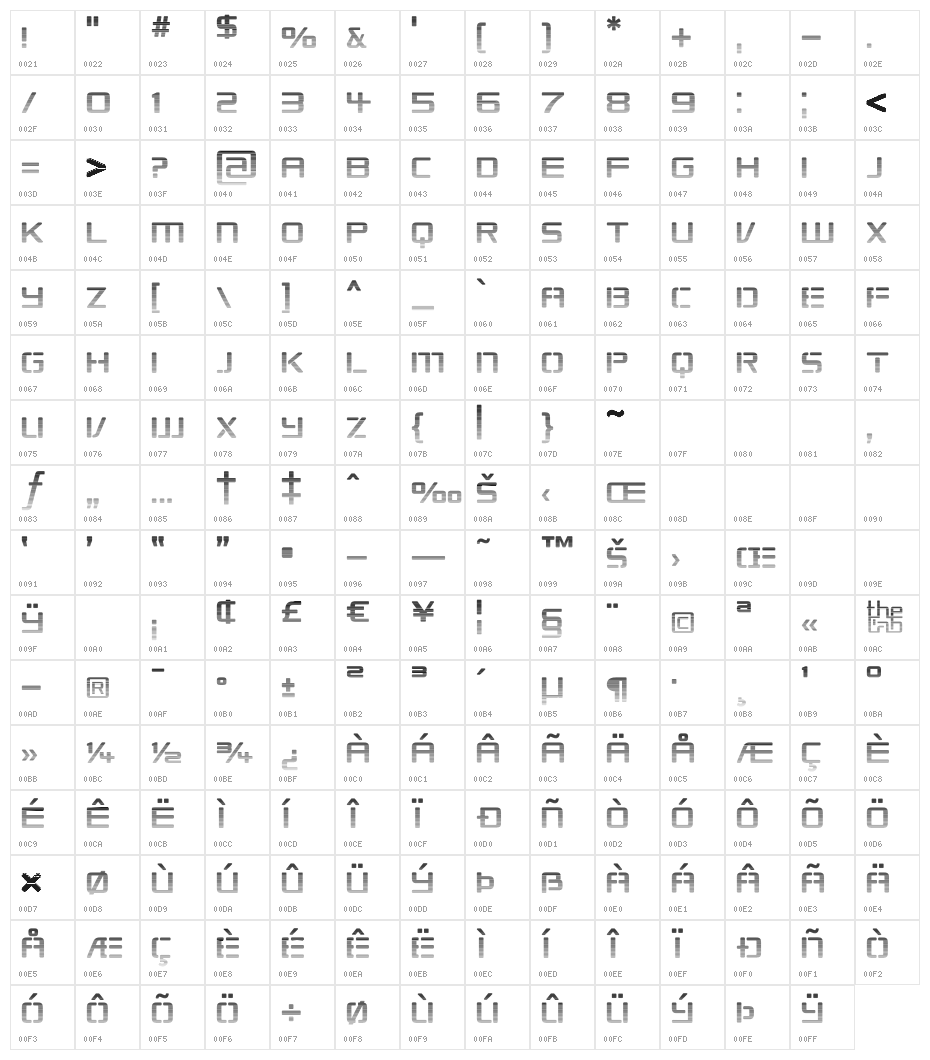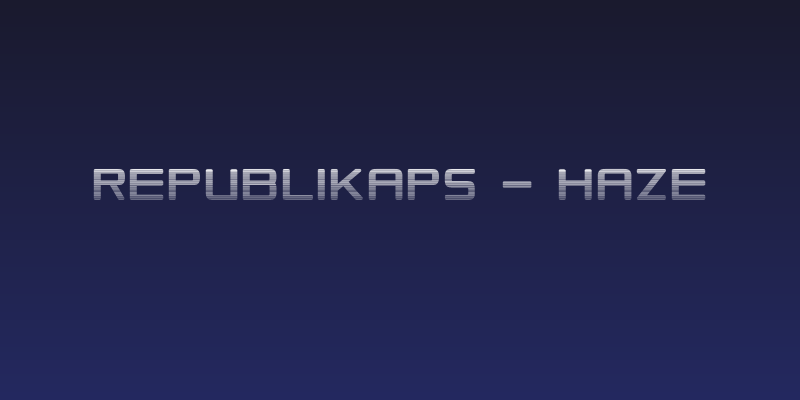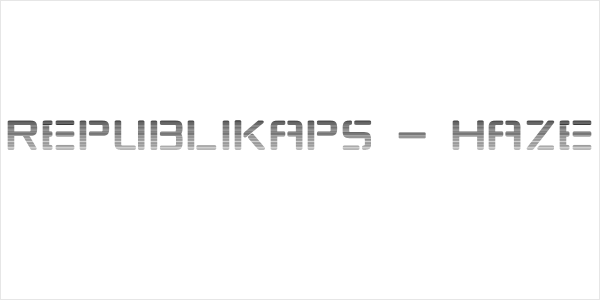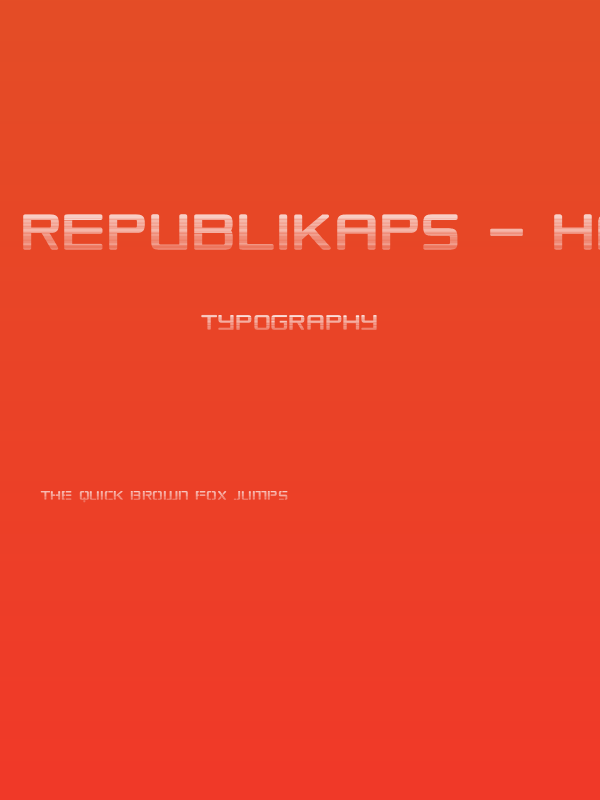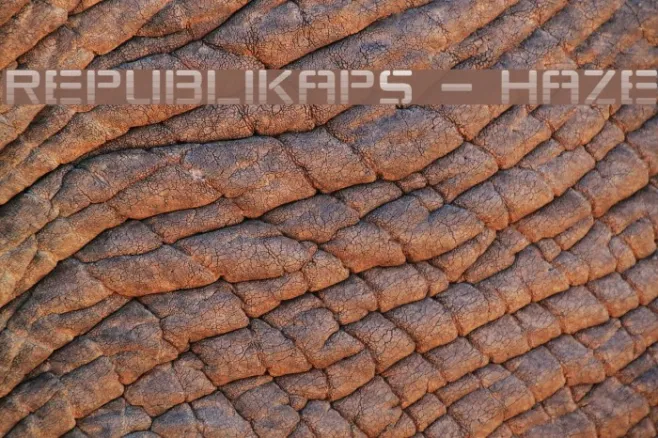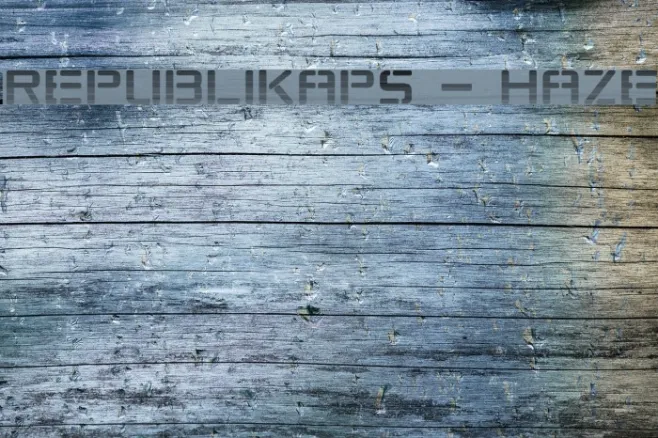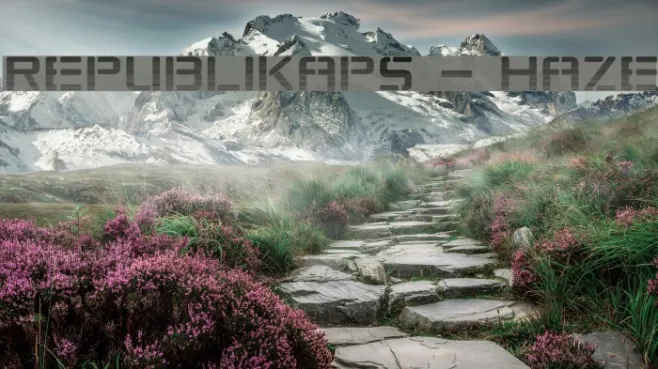
Republikaps - Haze Font
Republikaps - Haze Description
This font features a futuristic and digital aesthetic, characterized by its segmented and linear design. Each character is composed of horizontal lines that create a sense of movement and modernity. The uppercase and lowercase letters maintain a consistent style, with a geometric and angular appearance. The numerals and special characters follow the same design principles, ensuring uniformity across the typeface. The font's unique style is reminiscent of digital displays or electronic interfaces, making it suitable for tech-related projects.
| Proposed Projects | Ideal for tech branding, digital interfaces, video game titles, and futuristic-themed posters. |